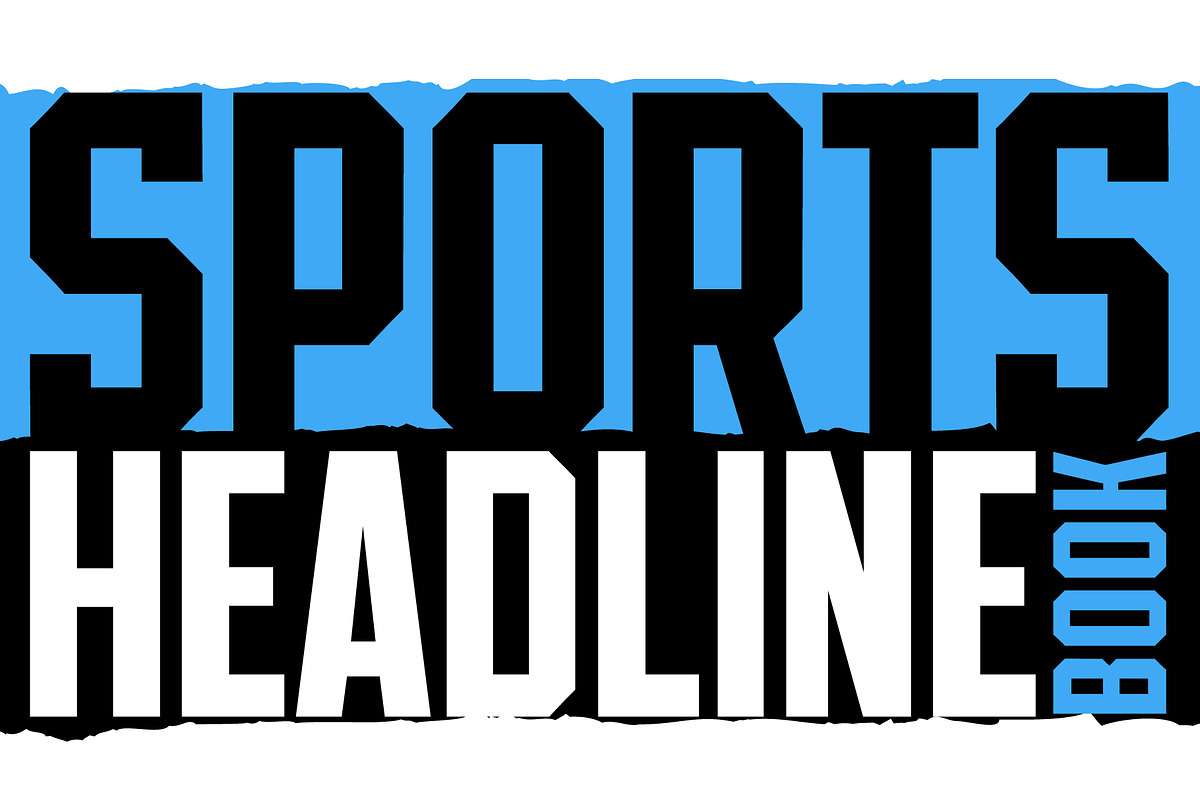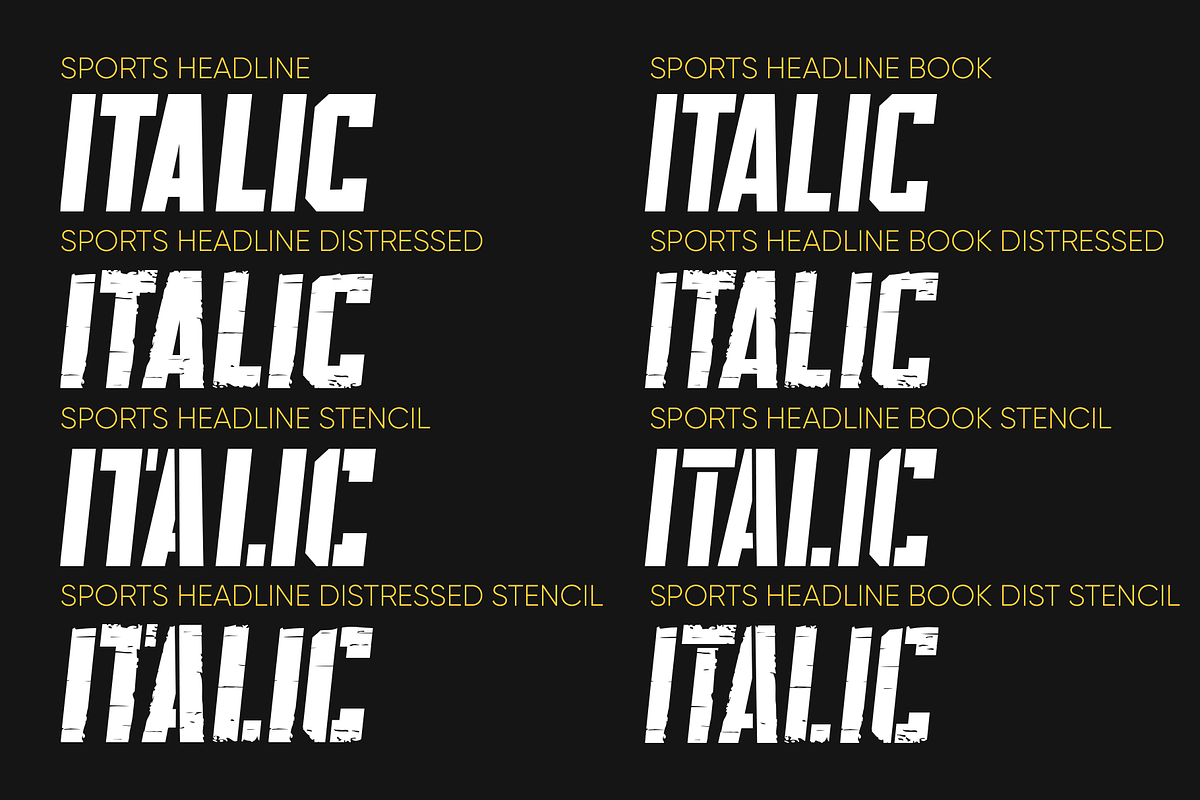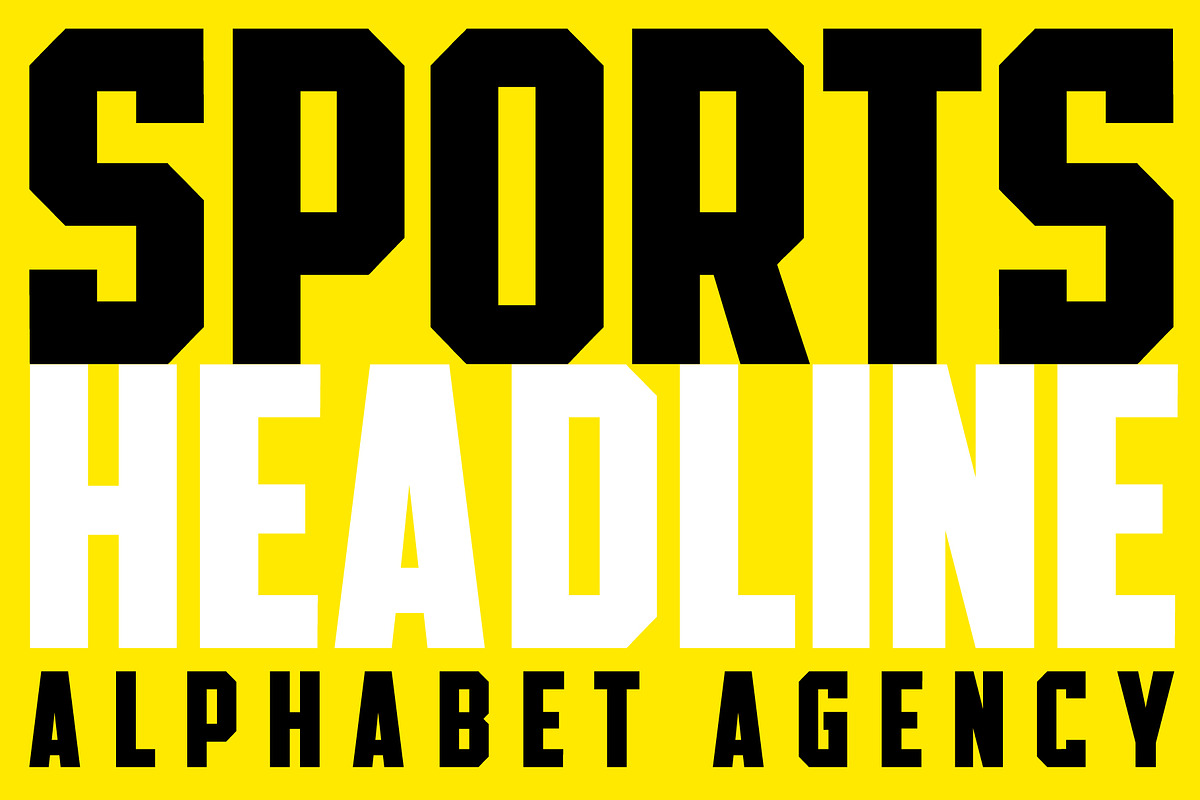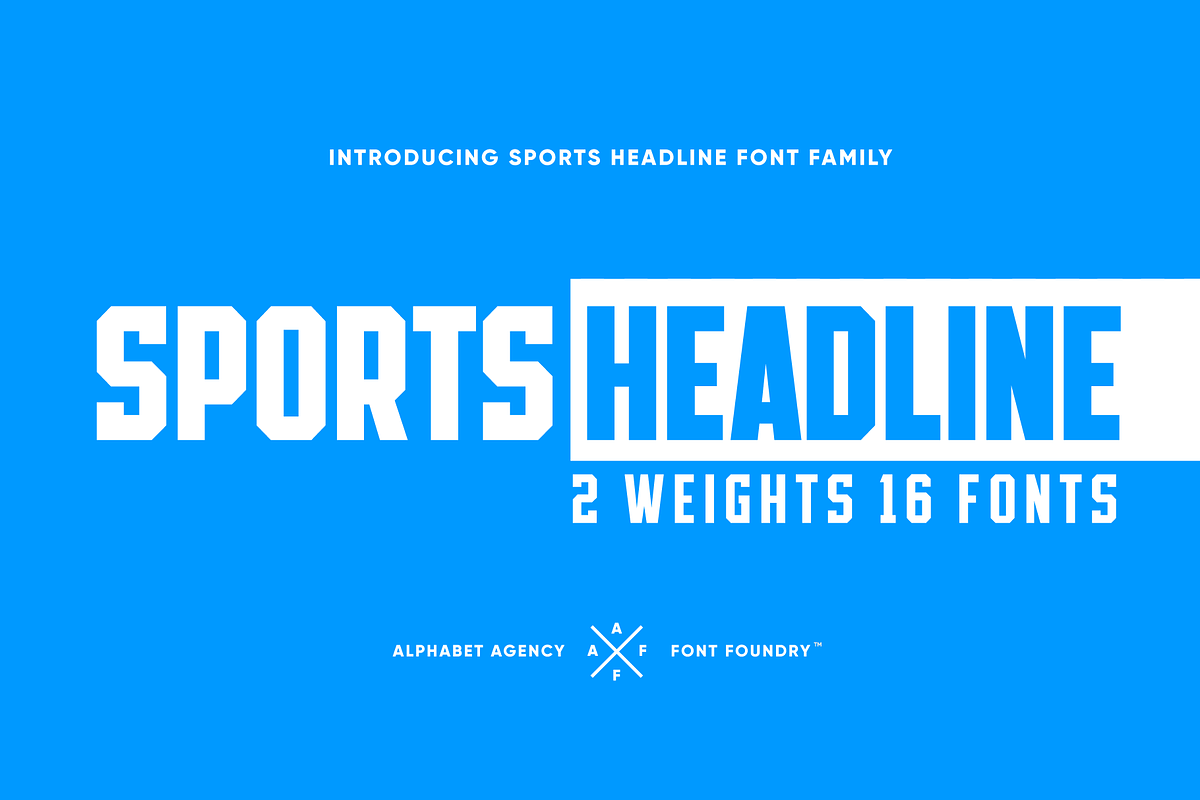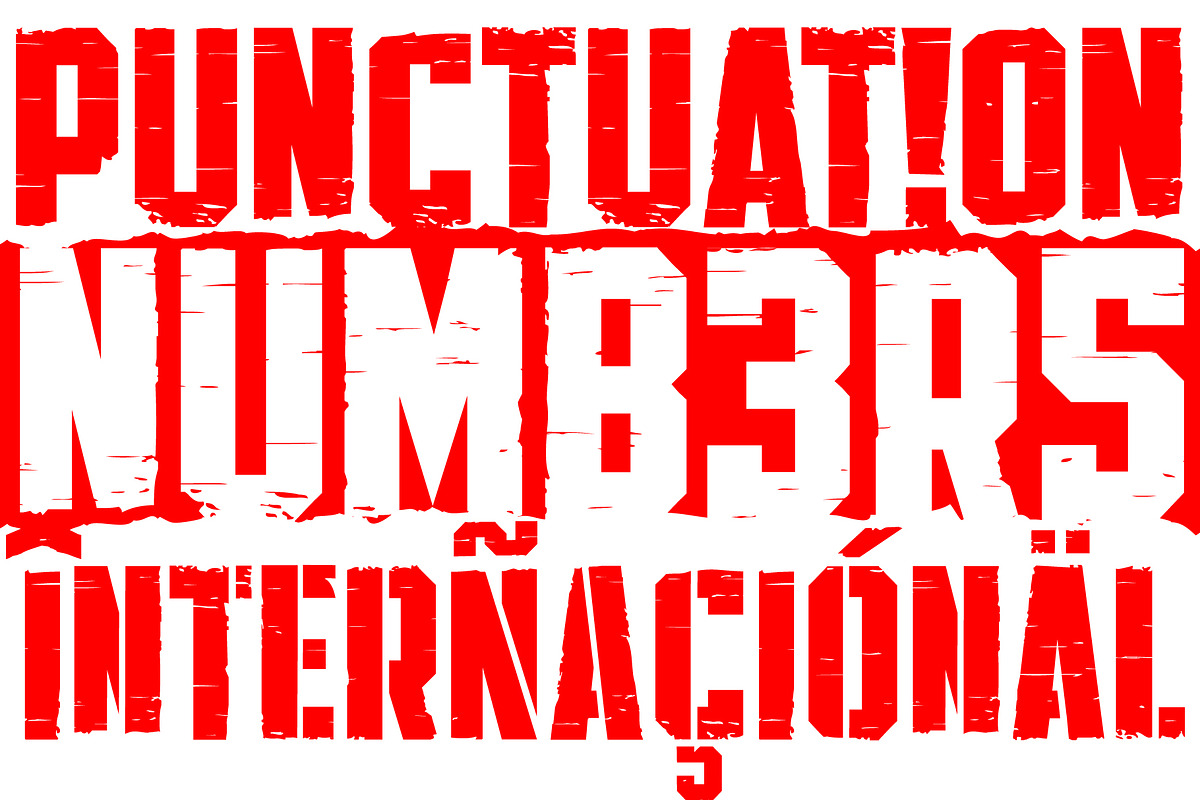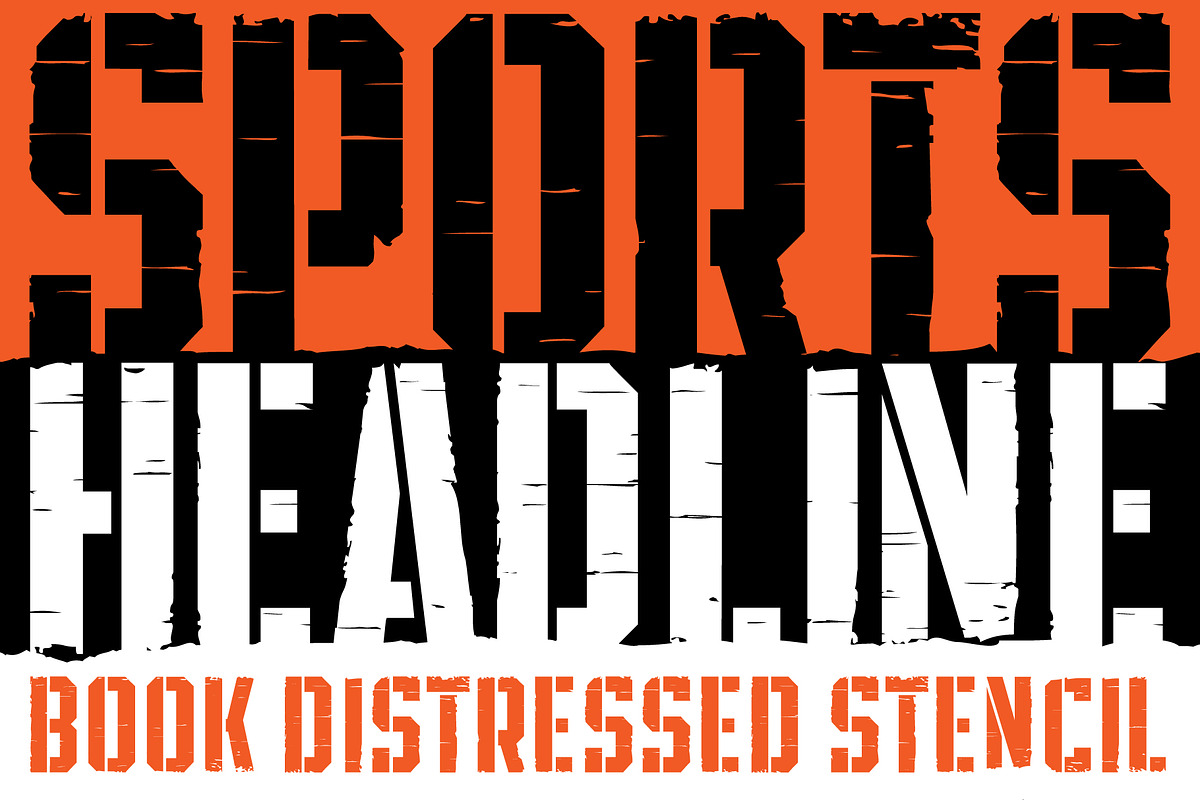
SPORTS HEADLINE FONT BUNDLE
-SPORTS HEADLINE ITALIC
-SPORTS HEADLINE STENCIL
-SPORTS HEADLINE STENCIL ITALIC
-SPORTS HEADLINE DISTRESSED
-SPORTS HEADLINE DISTRESSED ITALIC
-SPORTS HEADLINE DISTRESSED STENCIL
-SPORTS HEADLINE DISTRESSED STENCIL ITALIC
-SPORTS HEADLINE SEMI LIGHT
-SPORTS HEADLINE SEMI LIGHT ITALIC
-SPORTS HEADLINE SEMI LIGHT STENCIL
-SPORTS HEADLINE SEMI LIGHT STENCIL ITALIC
-SPORTS HEADLINE SEMI LIGHT DISTRESSED
-SPORTS HEADLINE SEMI LIGHT DISTRESSED ITALIC
-SPORTS HEADLINE SEMI LIGHT DISTRESSED STENCIL
-SPORTS HEADLINE SEMI LIGHT DISTRESSED STENCIL ITALIC
Why SPORTS HEADLINE FONT BUNDLE is worth a look
SPORTS HEADLINE FONT BUNDLE by Alphabet Agency fits naturally into Branding, posters, packaging, typography.